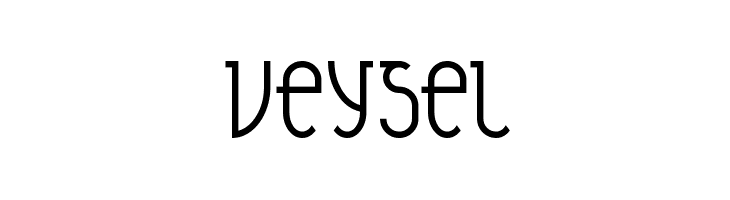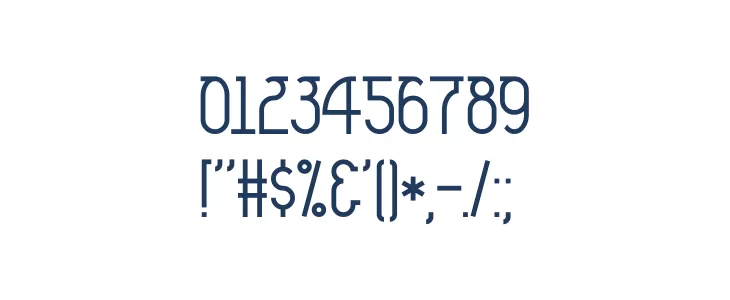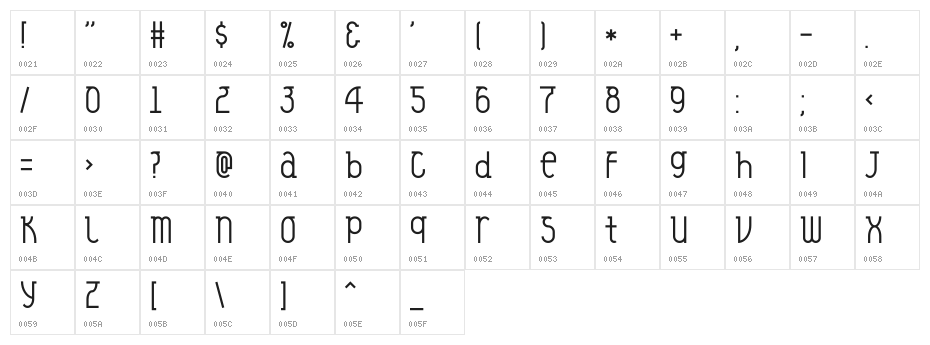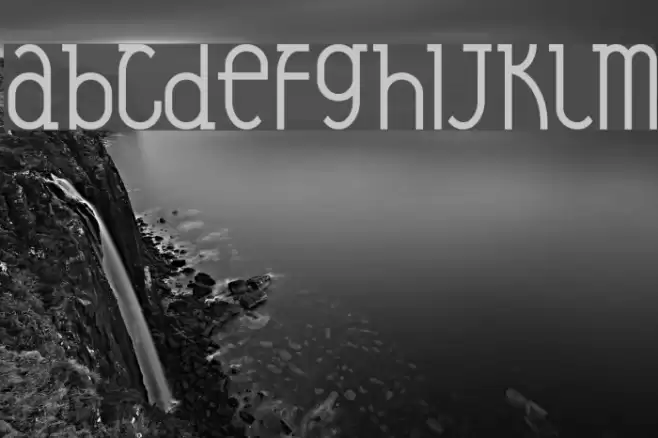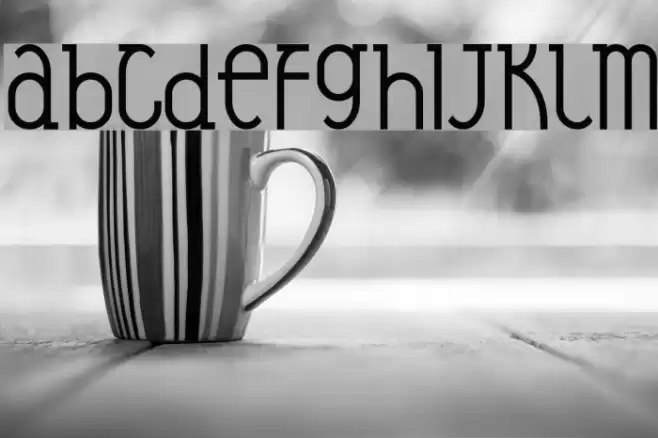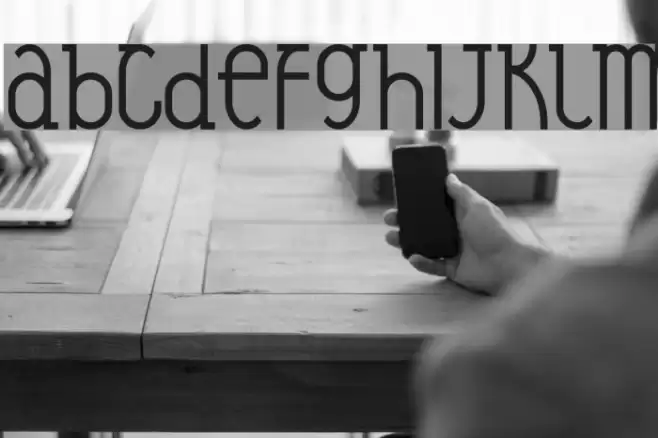
Veysel Font
Veysel Description
This font features a modern and geometric design with clean lines and a structured appearance. The characters are uniform in width, giving it a monospaced feel, yet they maintain a distinct elegance through subtle curves and rounded edges. The uppercase and lowercase letters are consistent in style, with a slight variation in height that adds visual interest. Numbers and special characters are crafted to match the overall aesthetic, ensuring a cohesive look across all text. The font's simplicity and clarity make it highly legible, suitable for both digital and print media.